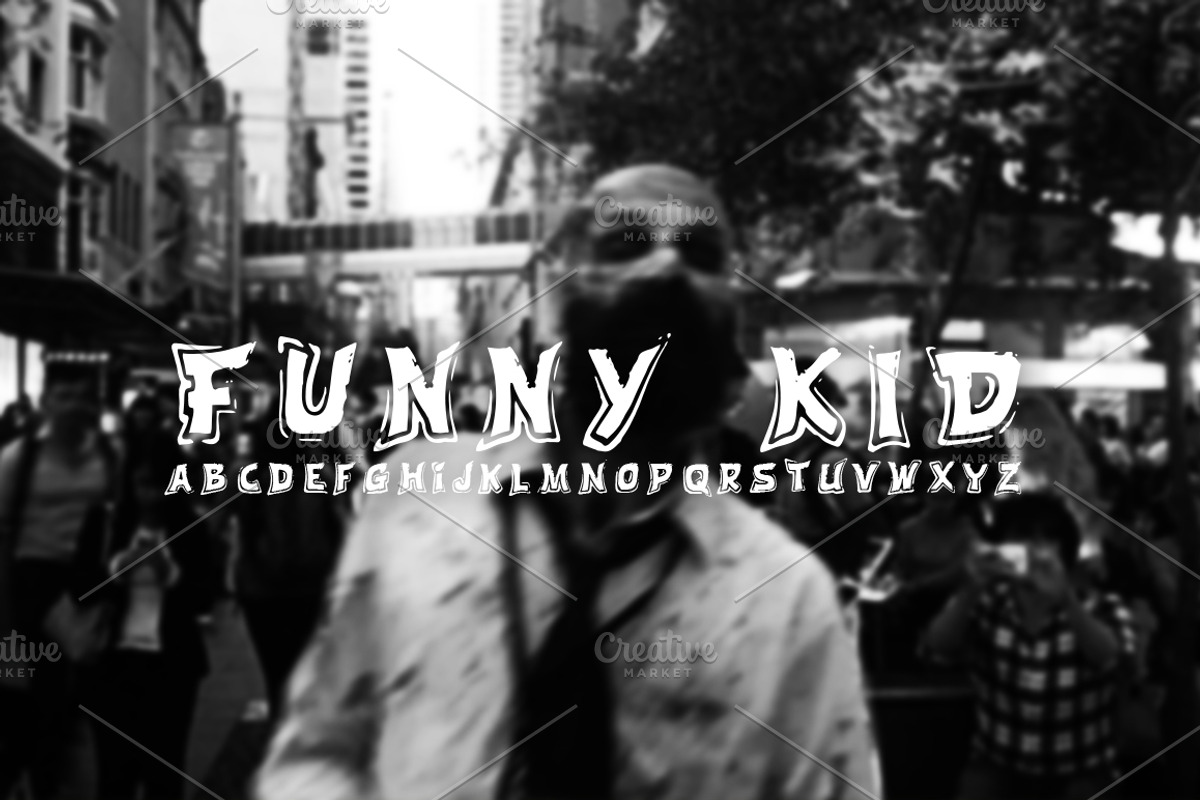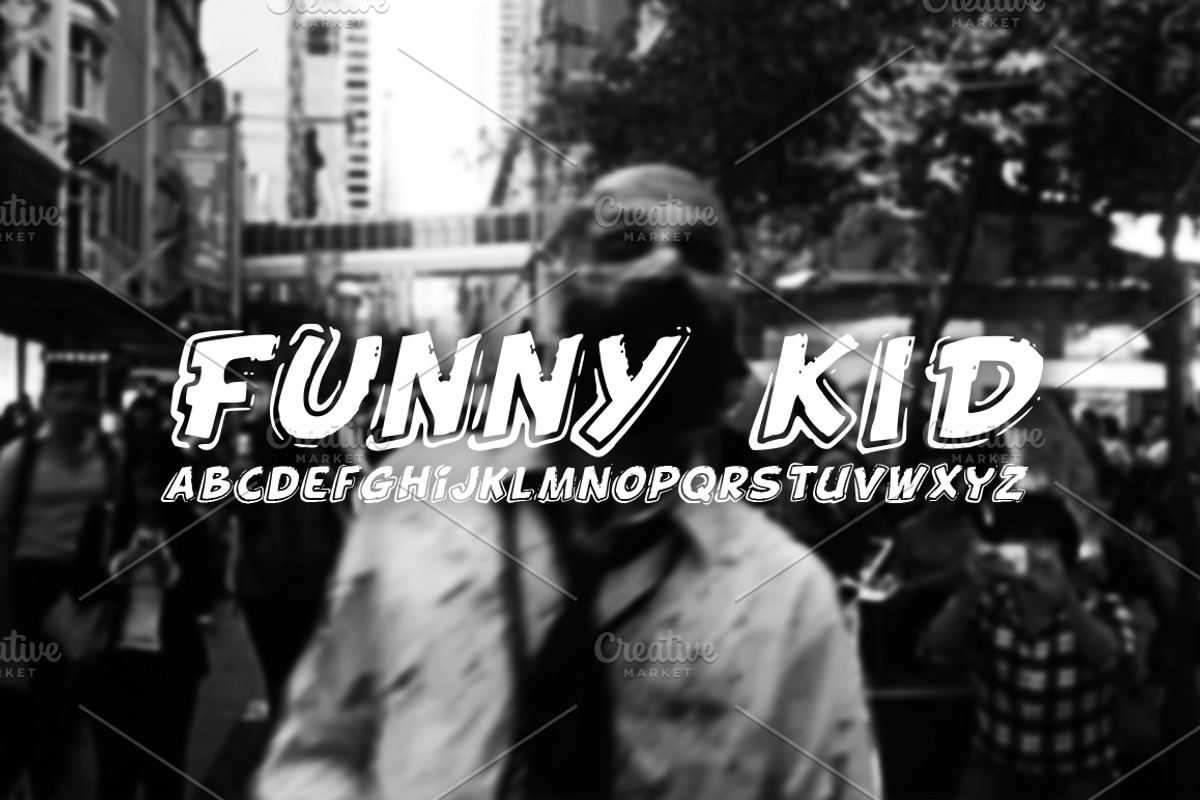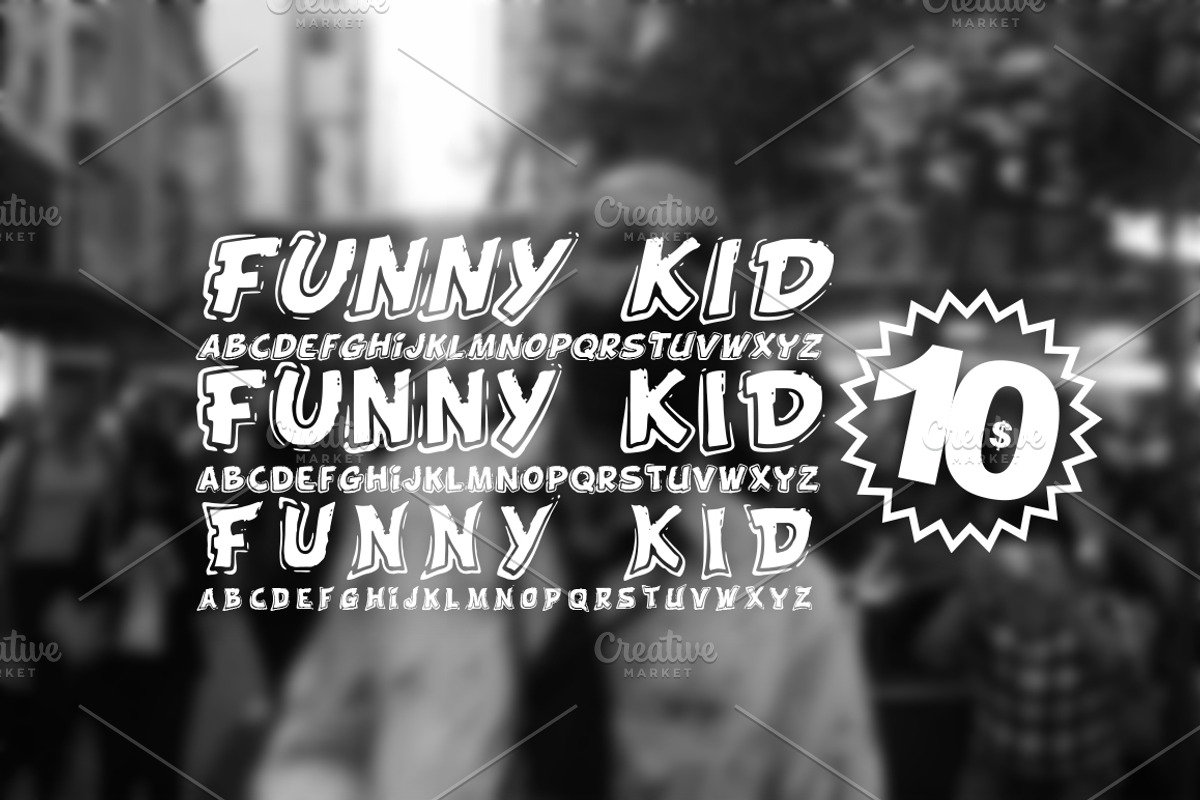
FONT | Funny Kid - 3 FONTS
FONT | Funny Kid - 3 FONTS by Leonard Posavec is a font selected for branding, posters, packaging, typography.
FONT | Funny Kid - 3 FONTS by Leonard Posavec fits naturally into Branding, posters, packaging, typography.